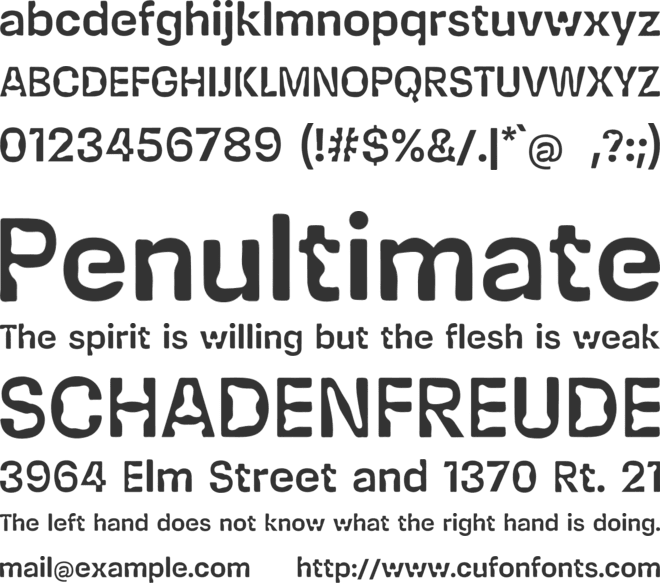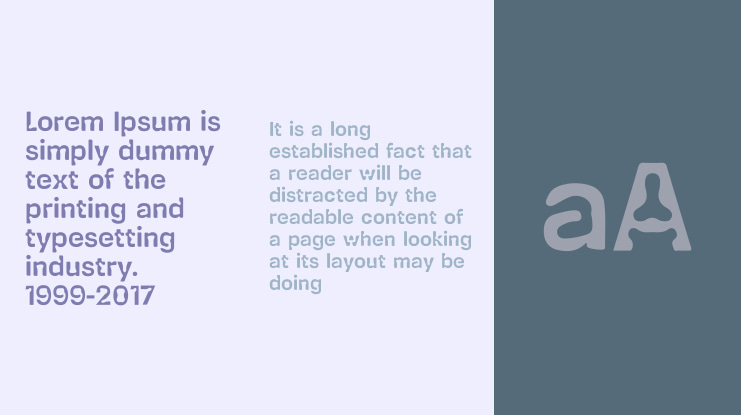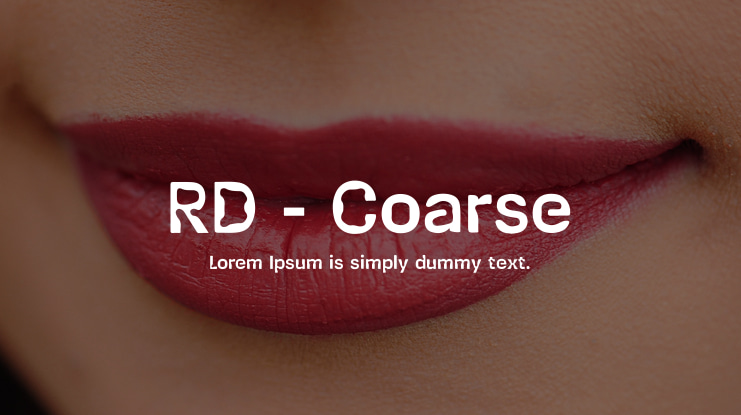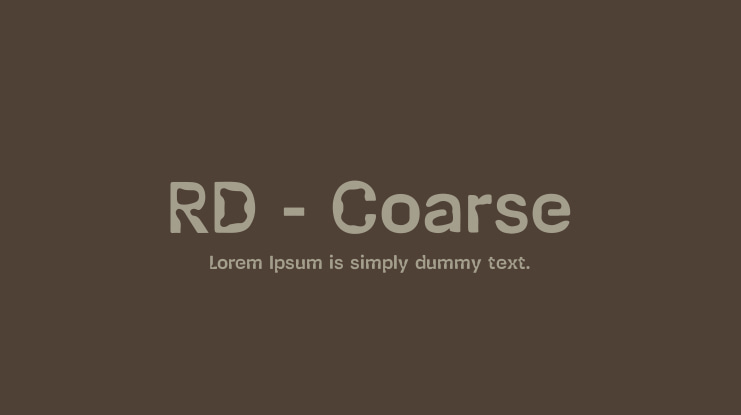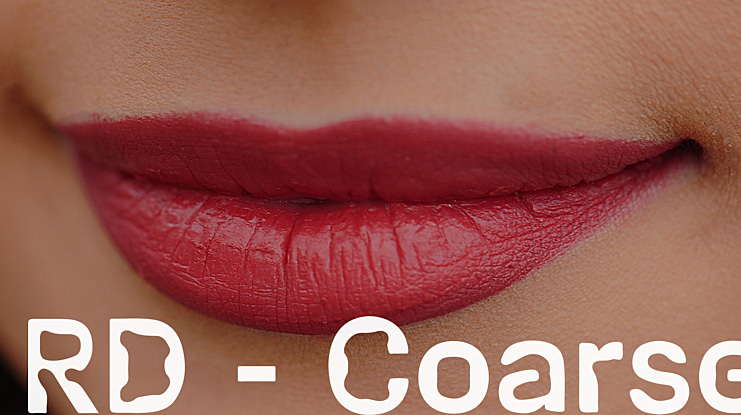
RD - Coarse Font Family
The final result of my research into Reaction Diffusion: an eroded font.
Erosion was done using OPENRNDR's EdgesWork filter, and it was then vectorised and made into a proper font using Fontself.